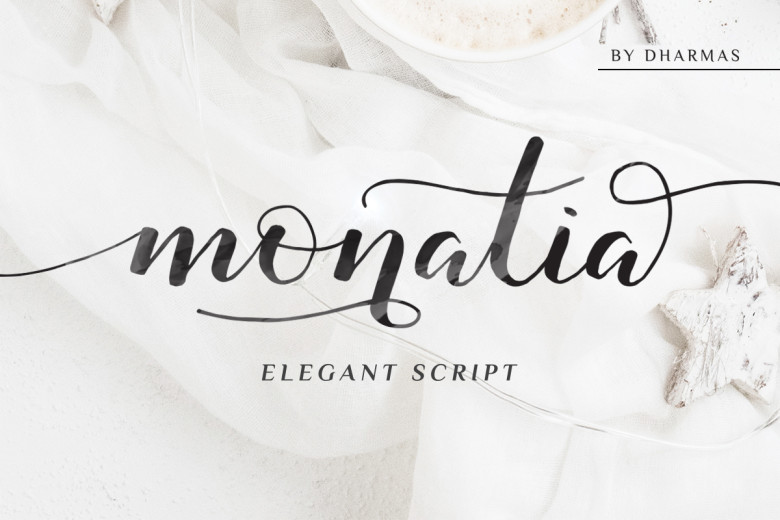
Monatia Font
This beautiful new Monatia script font was designed to add elegance and modernity to your designs! Built using OpenType features, this font contains numbers, punctuation marks and alternate characters – as well as supporting languages other than English.
This font is ideal for all projects, including logos, weddings, stationery and quotes as well as blog headers, posters, branding apparel letters etc.
Monatia Calligraphy Script Font